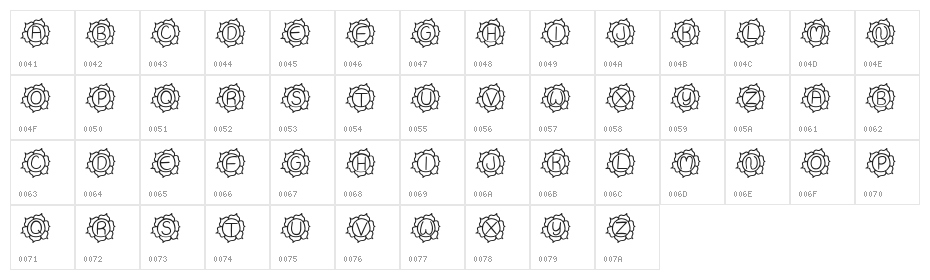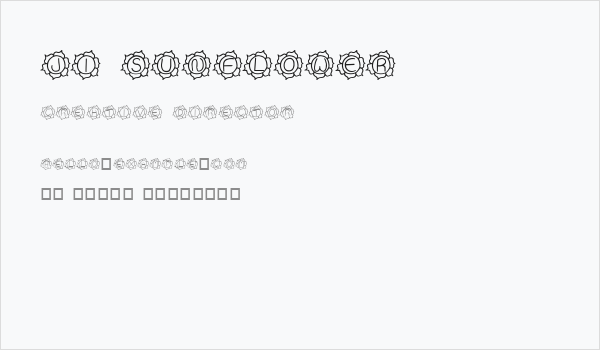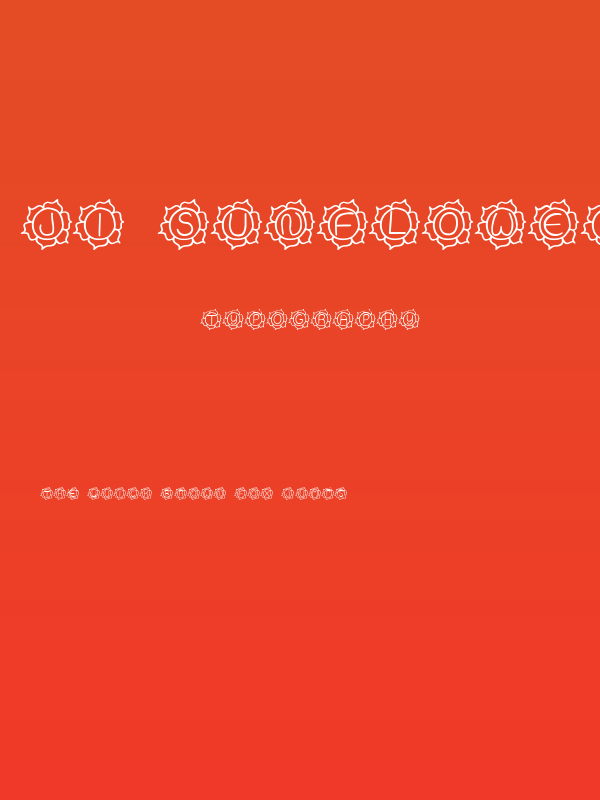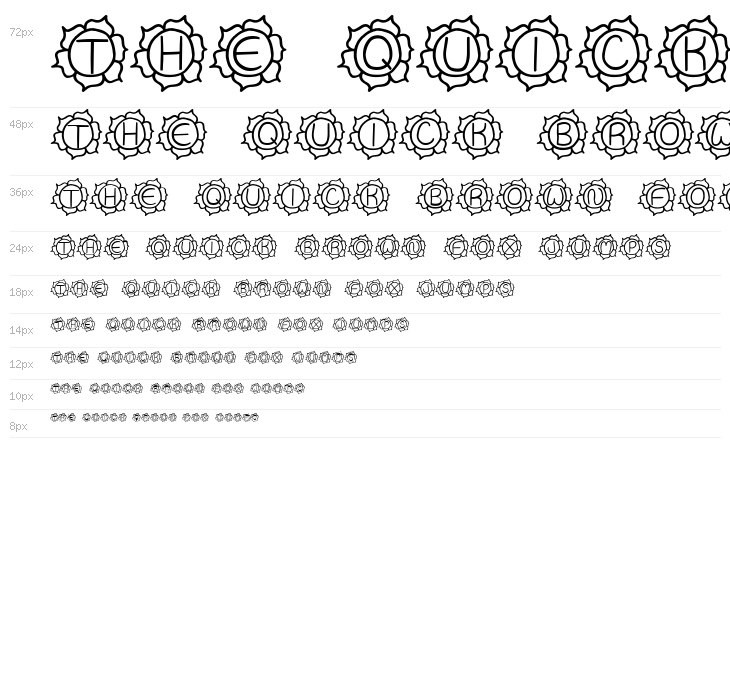
JI Sunflower Font
JI Sunflower Description
This decorative font features a unique design where each character is encased within a sunflower-like shape, creating a playful and artistic appearance. The letters are bold and clear, making them stand out against the intricate floral border. This font is ideal for creative projects that require a touch of whimsy and elegance. The uppercase and lowercase letters maintain a consistent style, ensuring uniformity across different text applications. The numbers and special characters are also designed to match the floral theme, providing a cohesive look throughout.
| Proposed Projects | Ideal for greeting cards, invitations, children's books, and artistic posters. |